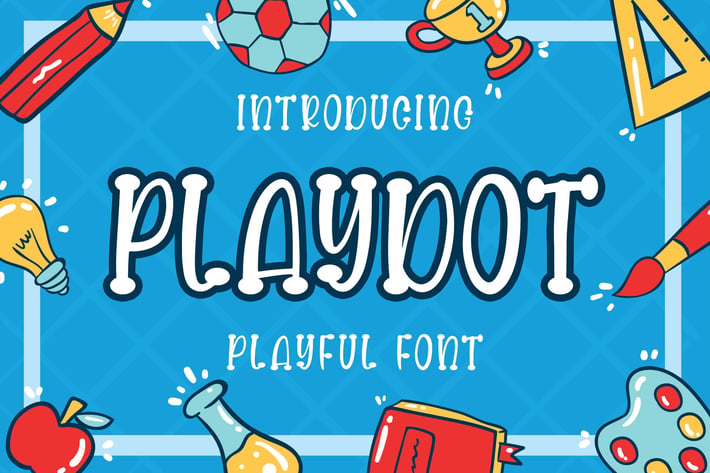
Playdot Playful Font
Introducing of our new product the name is Playdot Playful Font. Playdot inspired by bouncy serif style this font is a fun theme very good for display, wedding, kids, valentine theme, logotype and etc
MULTILINGUAL ACCENT :
ØÆøæ¢ÐŒœÁĂÂÀÄĄÅÃǼĆČÇĈĊĎÉĔĚÊËĖÈĘĞĜĢĠĤÍĬÎÏİÌĮĨĴĶĹĽĻĿŃŇŅÑÓŎÔÖÒŐǾÕŔŘŖŚŠŞŜȘŤŢÚŬÛÜÙŰŲŮŨẂŴẄẀÝŶŸỲŹŽŻáăâäàąåãǽćčçĉċďéĕěêëėèęğĝģġĥíîïìįĩĵķĺľļŀńʼnňņñóŏôöòőǿõŕřŗśšşŝșťţŭûüűùųůũẃŵẅẁýŷÿỳźžż